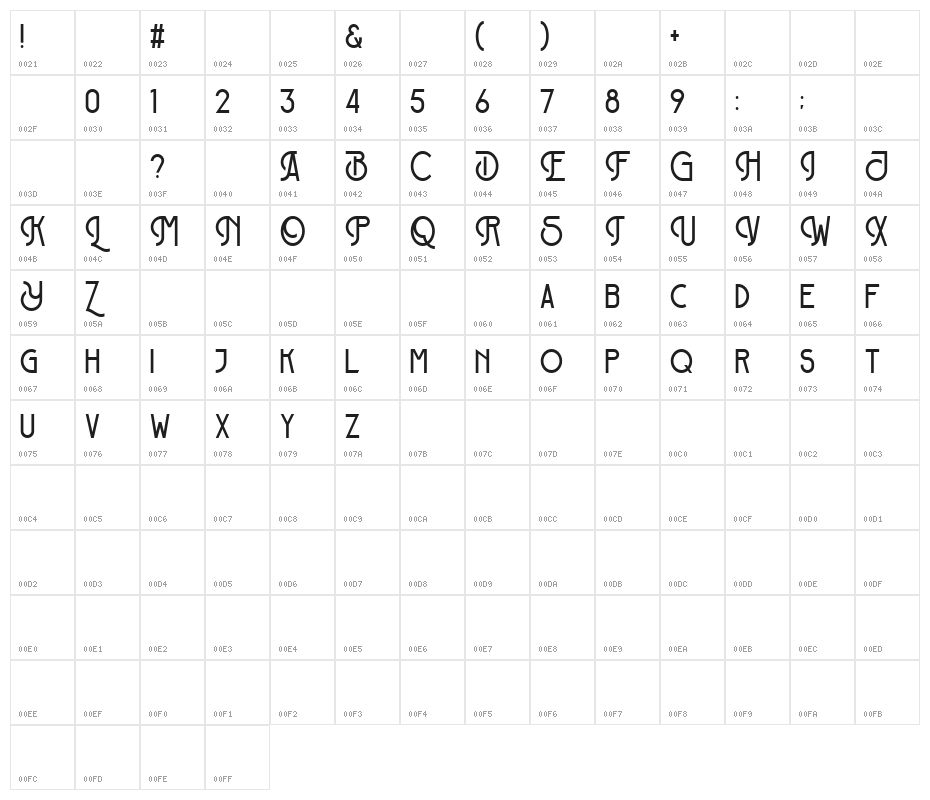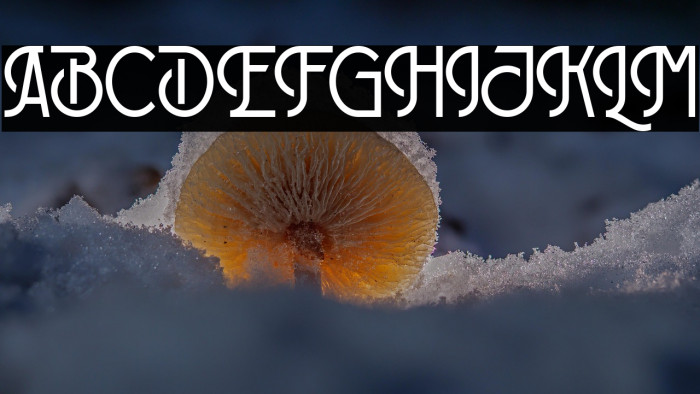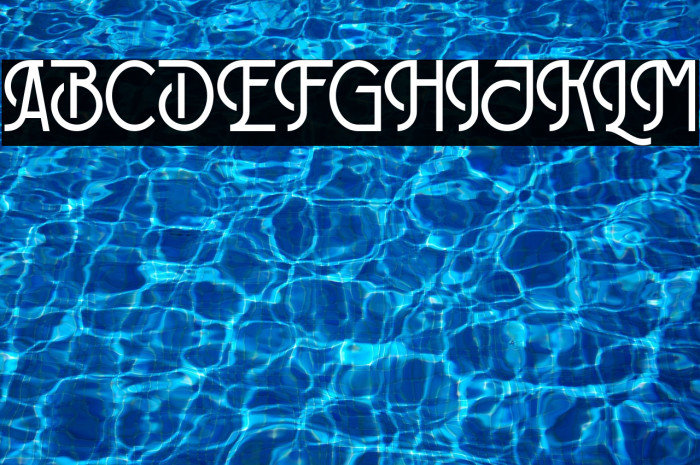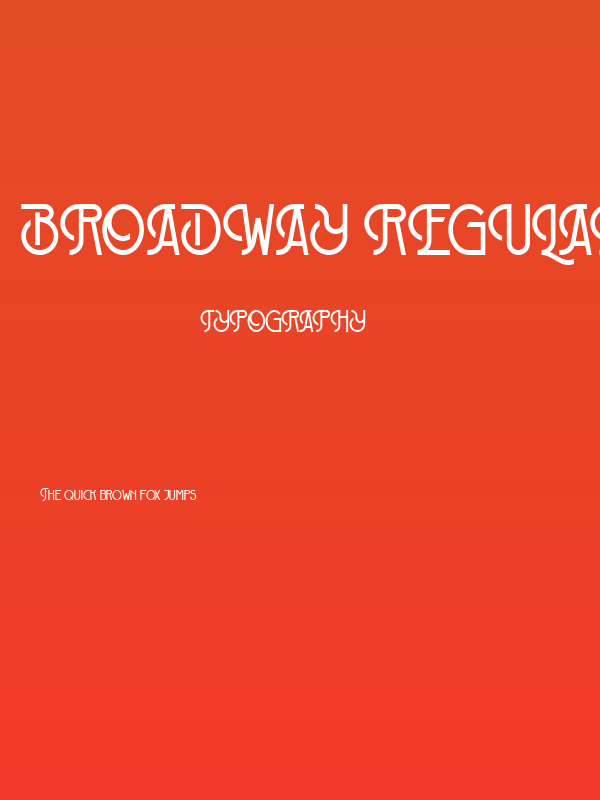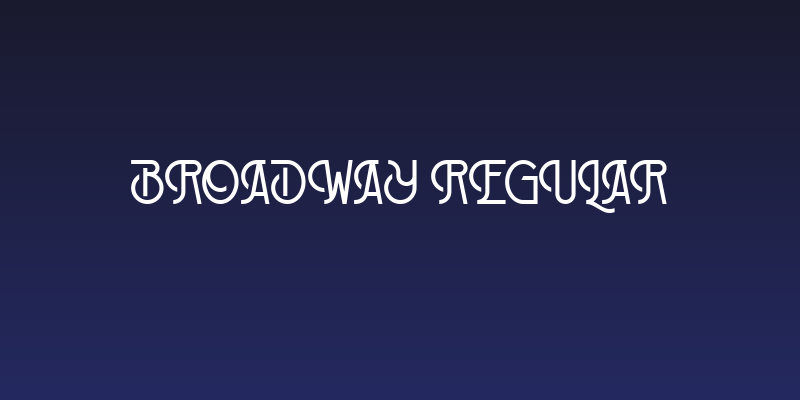
Broadway Regular Font
Broadway Regular Description
This font features a bold and striking design, characterized by its geometric and art deco-inspired elements. The uppercase letters are particularly distinctive, with sharp angles and unique cutouts that give it a theatrical and vintage feel. The numerals and special characters maintain this aesthetic, ensuring consistency across all glyphs. The font's clean lines and structured form make it highly legible, while its decorative flair adds a touch of elegance and sophistication. It is well-suited for creating eye-catching headlines and titles, where its bold personality can truly shine.
| Proposed Projects | Ideal for use in theater posters, vintage-themed branding, luxury product packaging, and editorial design. |